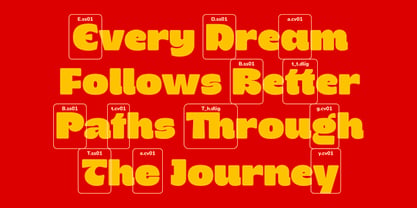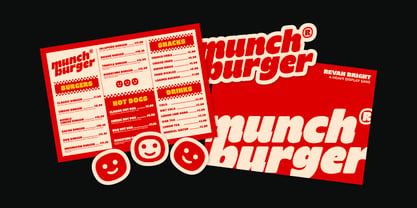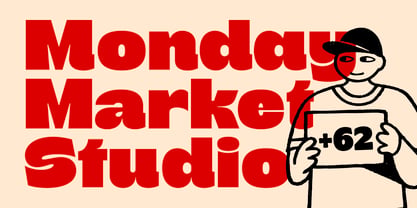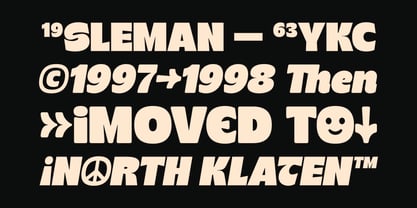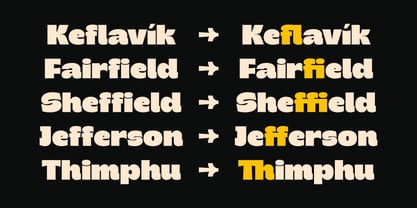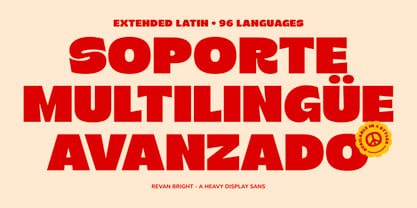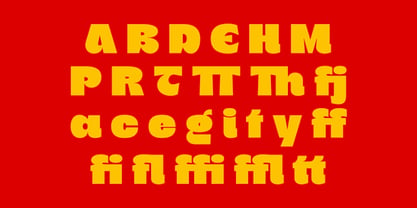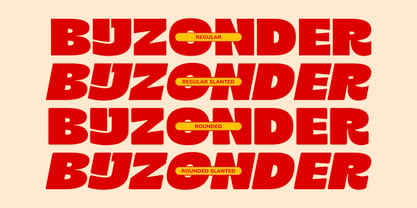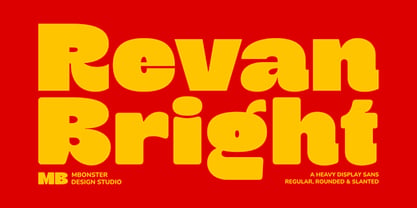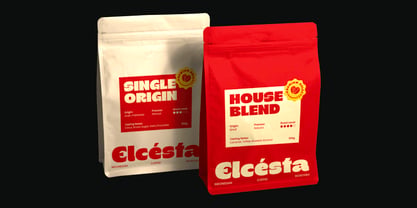
Revan Bright
Revan Bright — Bold, Joyful Impact
Revan Bright is a heavy, playful display sans with vintage aesthetics and a modern chunky build. Its four versatile styles—Regular, Slanted, Rounded, and Rounded Slanted—give designers flexible options for expressive typography. A rich set of custom ligatures adds character, while the full forms keep the tone fun, energetic, and unapologetic.
Use Revan Bright for vibrant fast-food menus, bold packaging, retro posters, streetwear badges, and logotypes that need confident visual presence. The typeface brings weight, rhythm, and personality to branding systems where every word must feel direct, memorable, and full of movement.